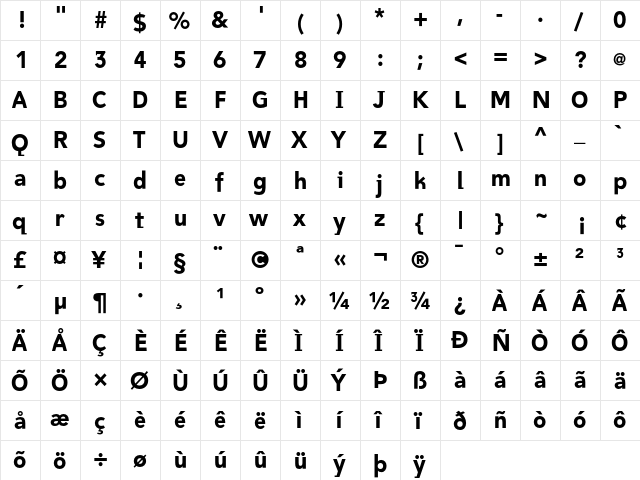
Bawdy Bold
Design Context for Bawdy Typeface
Bawdy offers clean, dependable letterforms without strong stylistic allegiance, making it a practical choice for designers who need flexibility. Its bold stroke weight gives it real presence on the page.
Pro Tip: Pair Bawdy with a font of contrasting weight or personality to build a more expressive typographic hierarchy.